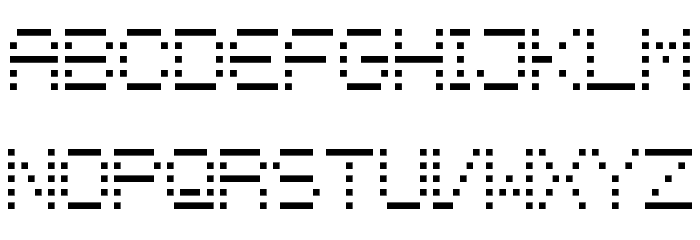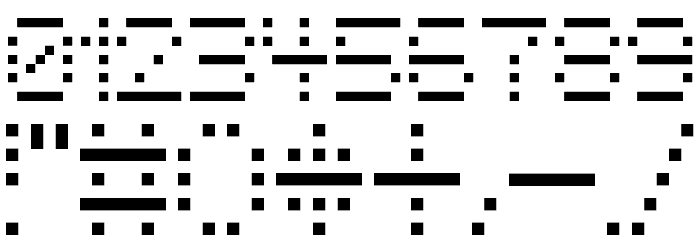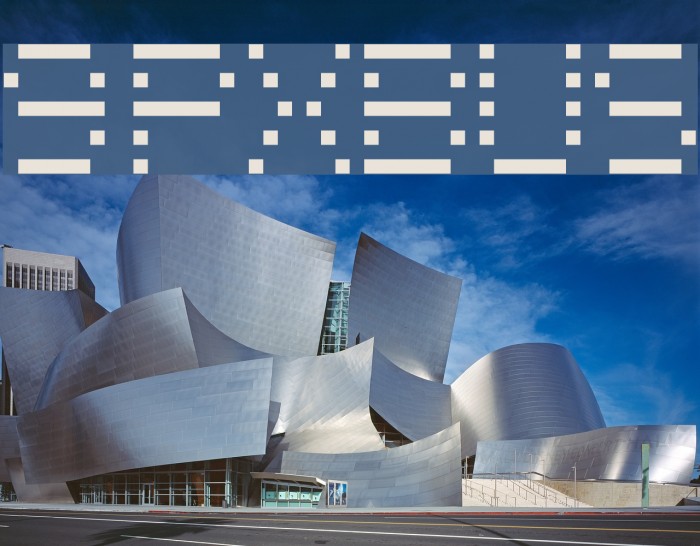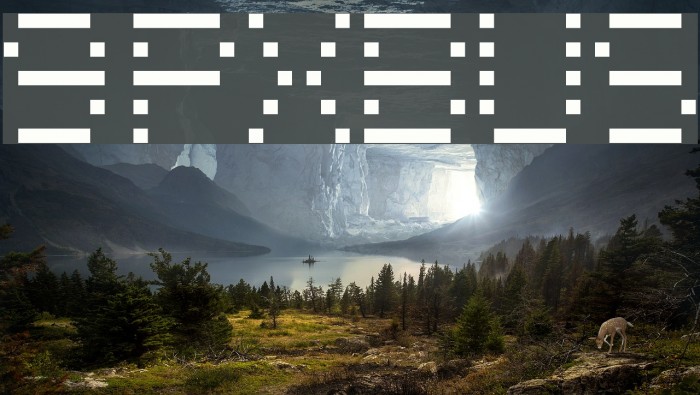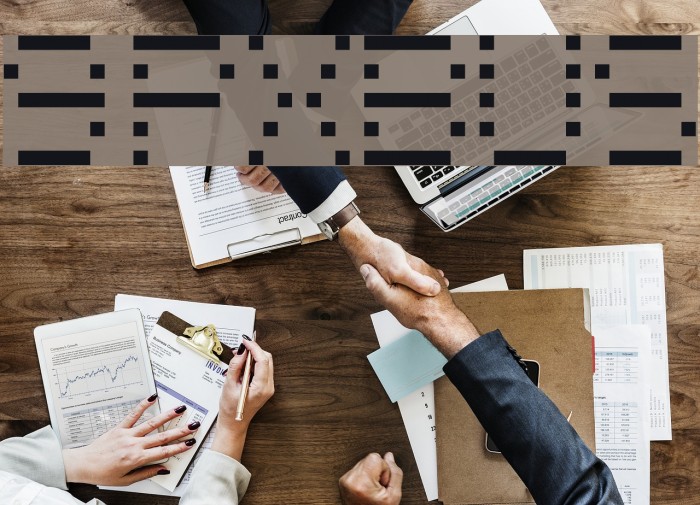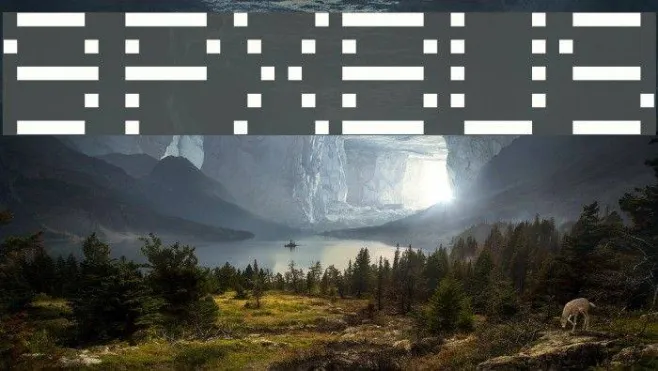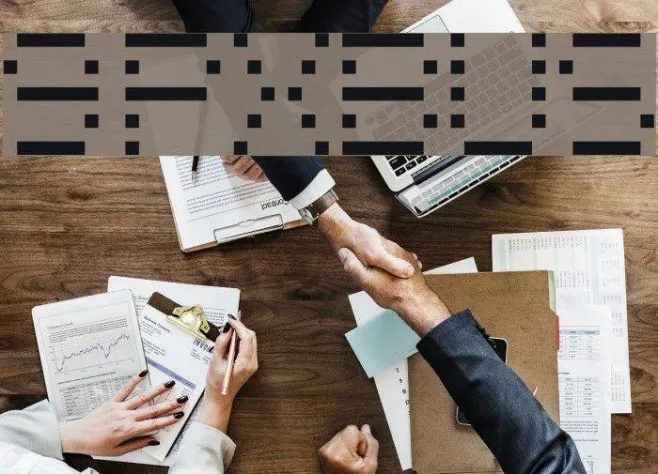
9pxbus Font
This font features a unique dot-matrix style, reminiscent of digital displays or early computer screens. Each character is composed of a grid of dots, creating a pixelated effect that is both retro and modern. The uppercase and lowercase letters maintain a consistent height, while numbers and special characters follow the same dot pattern, ensuring uniformity across all glyphs. The design is minimalistic yet striking, making it suitable for projects that require a digital or technological aesthetic. The spacing between characters is tight, enhancing the compact and efficient look of the text.
A pixelated dot-matrix font with a digital, retro aesthetic.
- Proposed Projects: Ideal for digital displays, retro-themed designs, tech-related branding, and video game interfaces.
- Character Spacing: Tight
- Use Case: Headlines, Logos, Digital displays